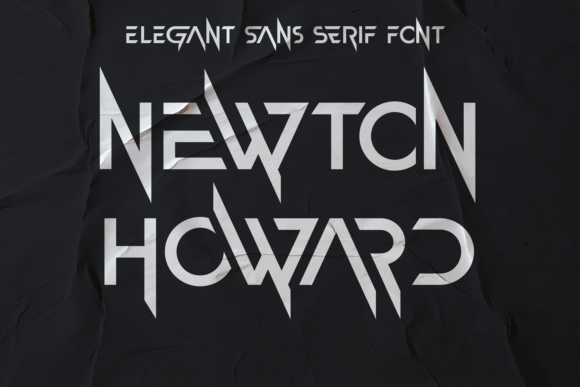
Introducing Newton Howard Font - A Bold and Geometric Masterpiece for Your Creative Arsenal
In a world where aesthetics reign supreme, Newton Howard Font emerges as a captivating display font, ready to transform your digital creations into masterpieces. Its bold and geometrically shaped characters exude a sense of modernity and sophistication, making it an ideal choice for designers seeking a unique touch in their projects.
With Newton Howard Font, the possibilities are limitless. Picture your web designs adorned with striking headlines and captivating calls to action, grabbing the attention of visitors and leaving a lasting impression. Its geometric precision lends itself perfectly to business cards, ensuring your brand stands out in a sea of mediocrity. Unleash your creativity and let your imagination run wild as you explore the endless applications of this remarkable font.
Step into a world of distinction and elevate your creative projects with Newton Howard Font. Its meticulously crafted characters are designed to make a statement, ensuring your designs stand out from the crowd. Whether you're a seasoned designer or just starting your creative journey, Newton Howard Font is your gateway to creating designs that resonate with audiences and leave an indelible mark.
Immerse yourself in a symphony of visual delight as Newton Howard Font transforms your ideas into captivating realities. Its geometric shapes and bold presence create a striking visual impact that captivates and engages viewers. Experience the thrill of crafting designs that speak volumes, communicating your message with clarity and impact.